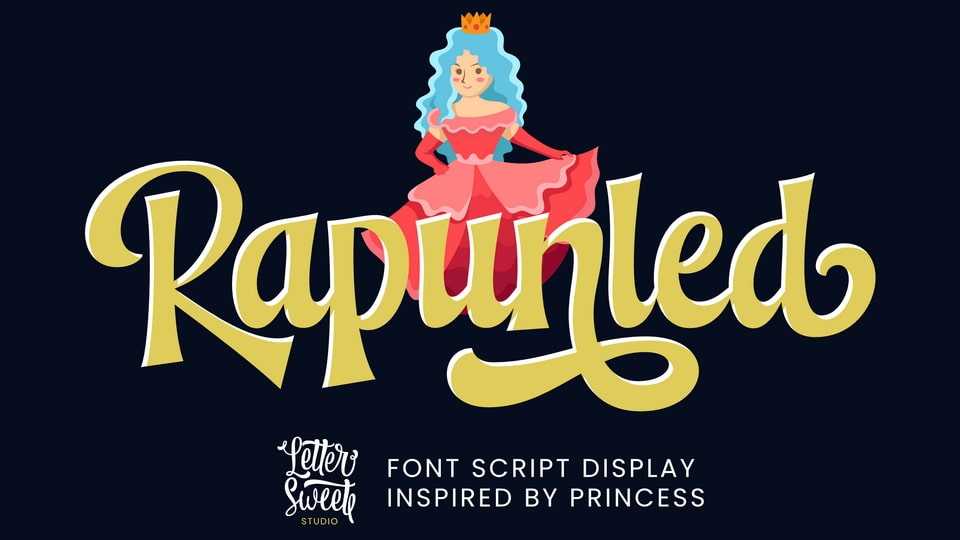
Download Rapunled font, a script typeface inspired by the Princess Rapunzel movies. The Rapunled font has many alternative glyphs. So the design can be more attractive.